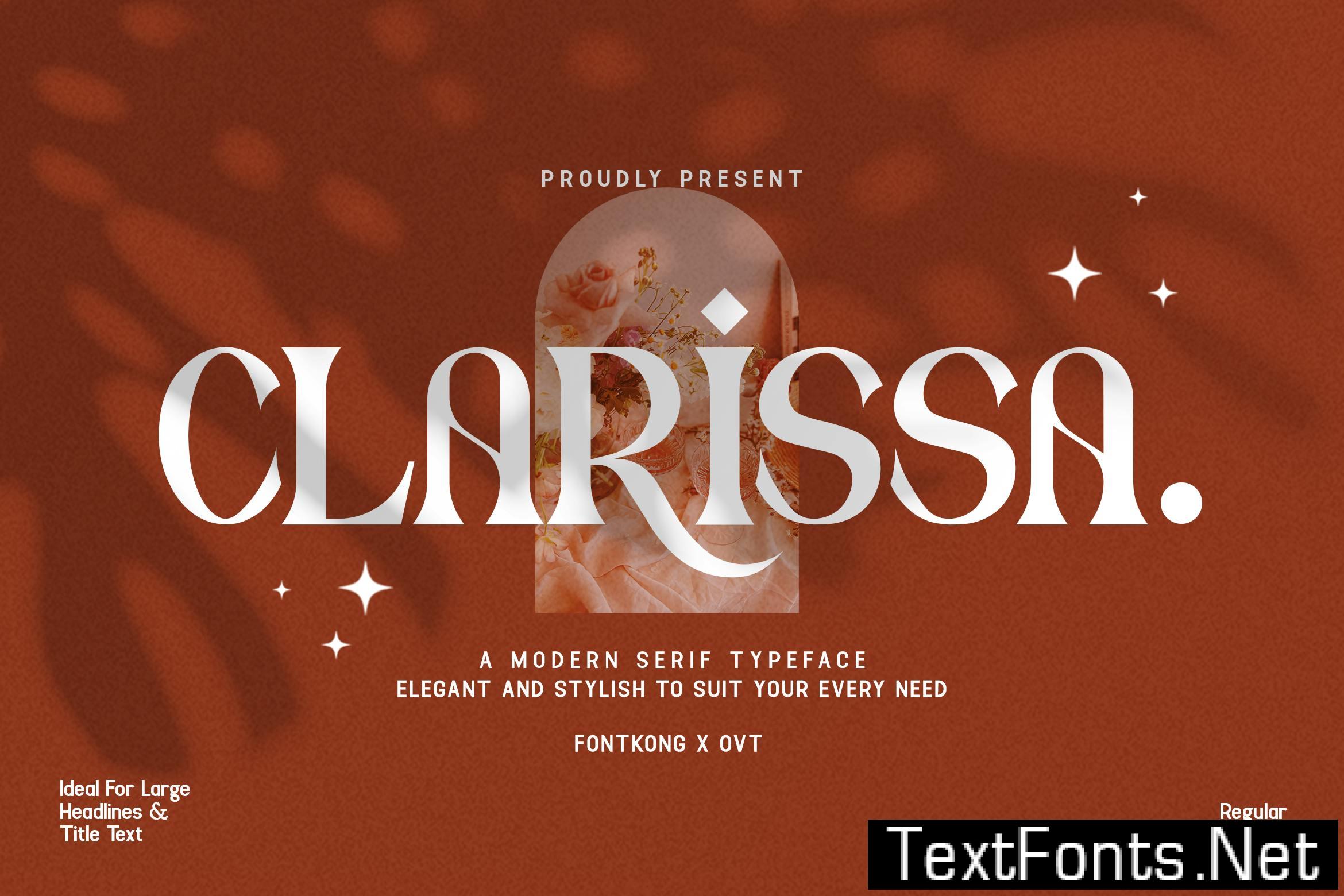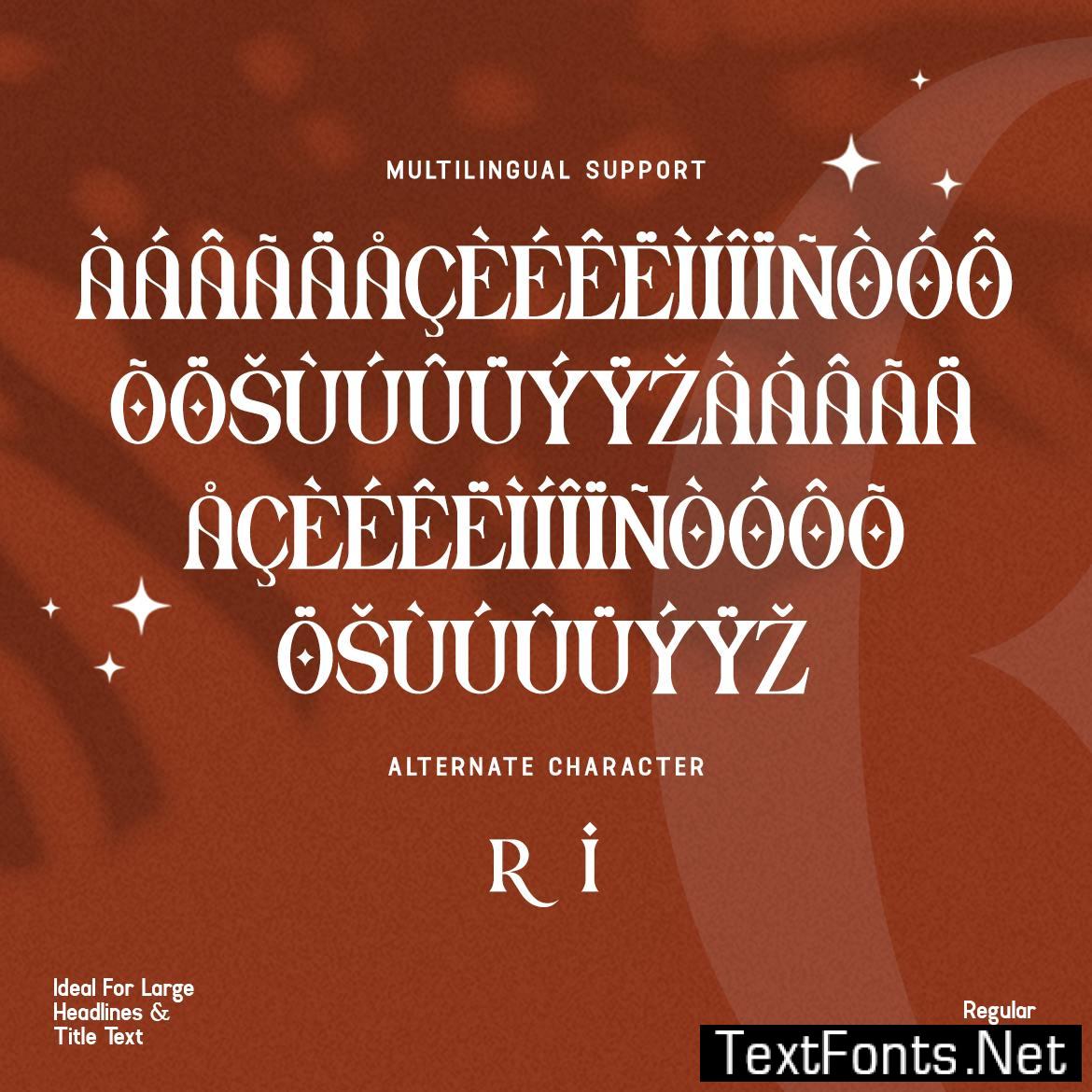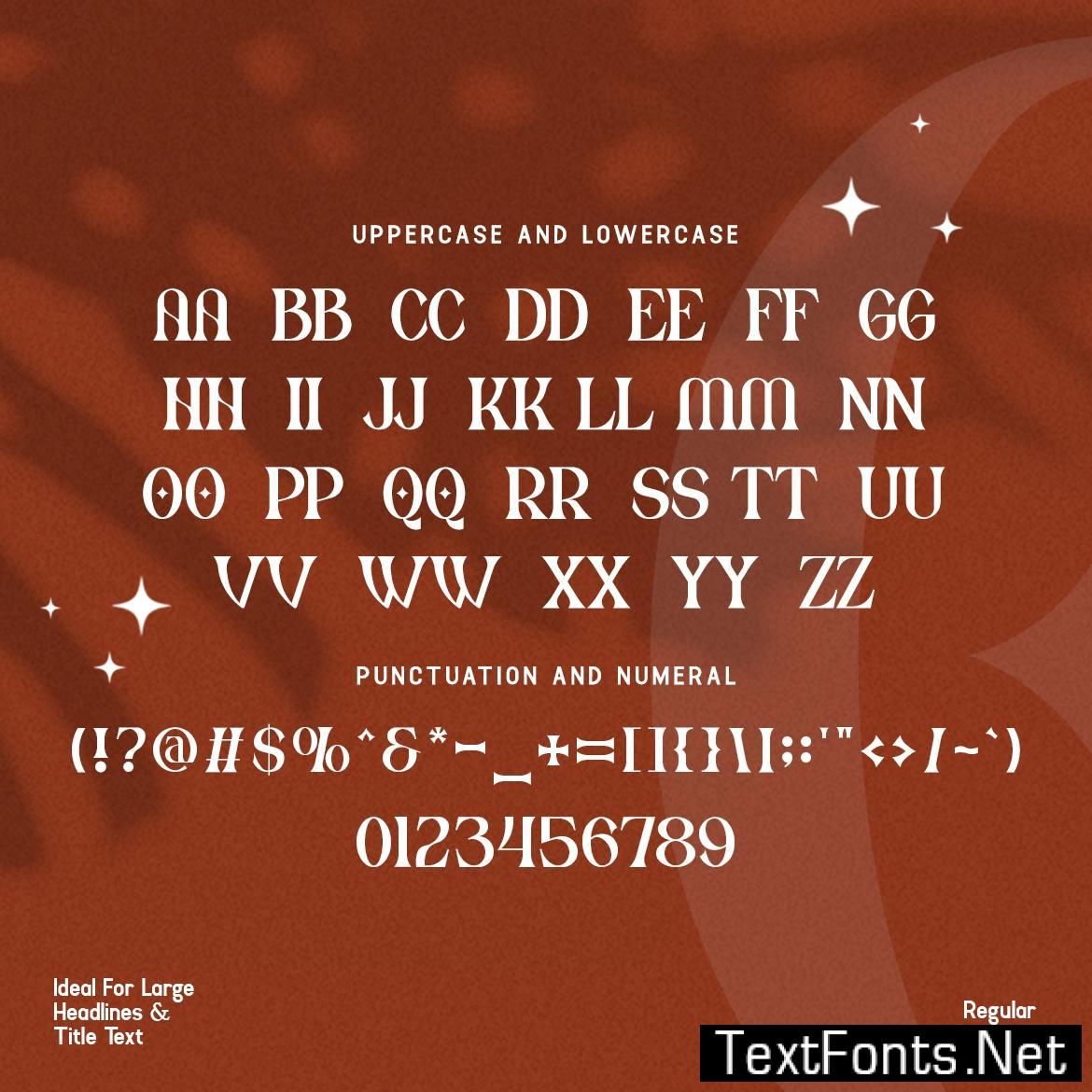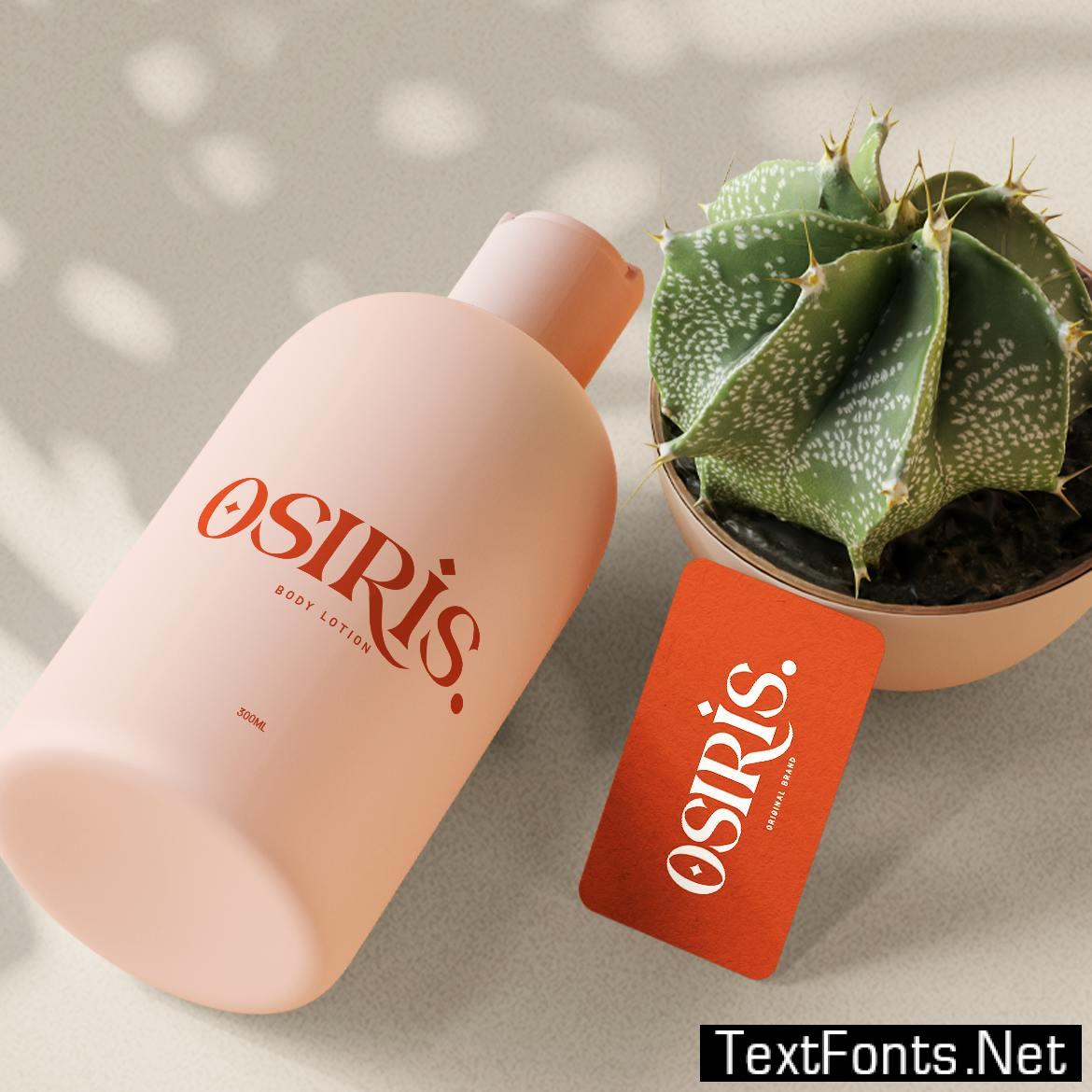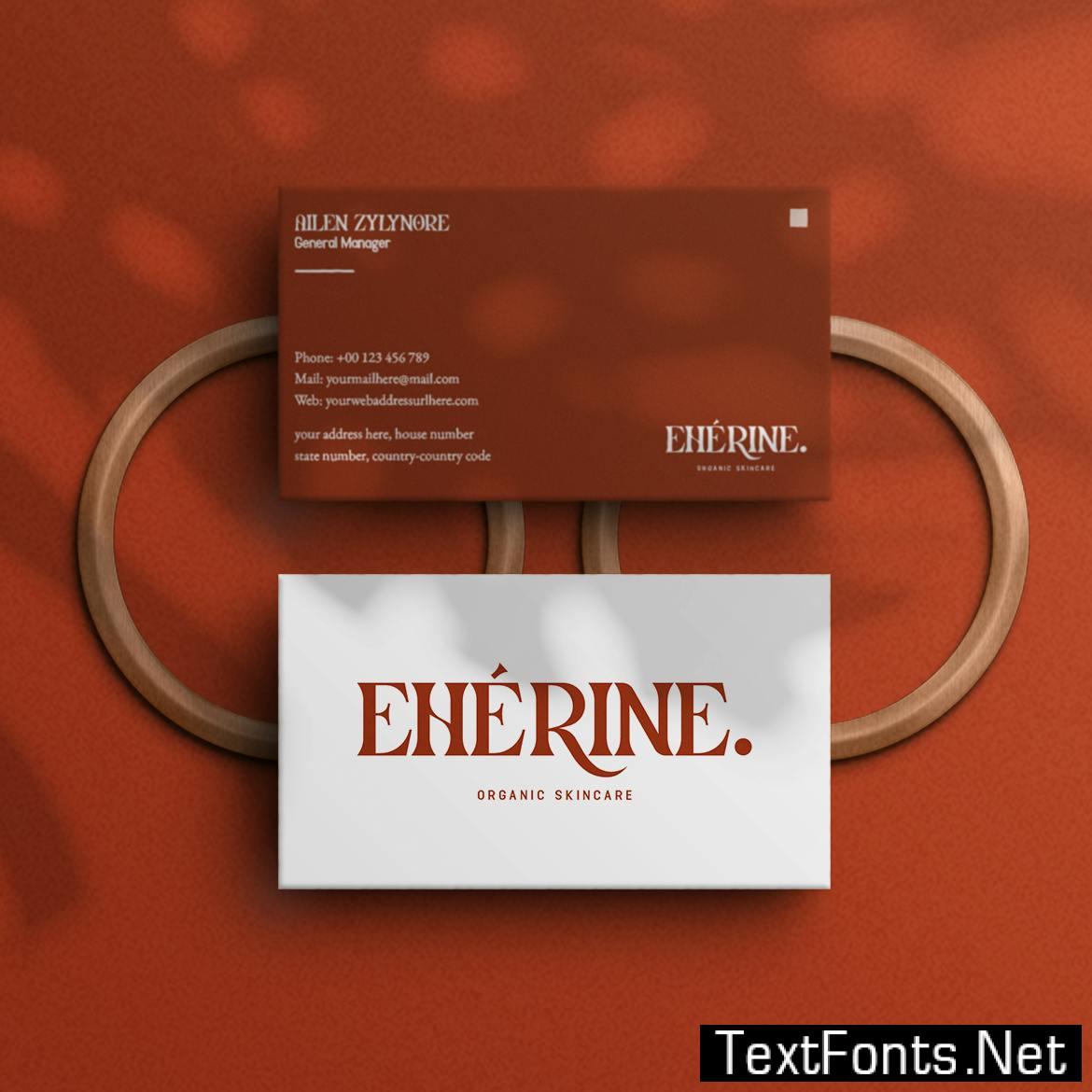
**Clarissa – Modern Serif Typeface**
Introducing “Clarissa,” a beautifully crafted modern serif typeface that merges classic style with a fresh, contemporary feel. Designed for versatility and impact, Clarissa offers an array of possibilities for designers looking to elevate their projects with a sense of sophistication and uniqueness.
Clarissa is characterized by its clean lines, refined serifs, and a balanced structure that enhances readability across various mediums. It is perfectly suited for high-end editorial work, sophisticated branding, and stylish advertising. This typeface includes a comprehensive set of weights, true italics, numerals, punctuation, and broad multilingual support, making it an excellent choice for global communication.
Ideal for everything from book covers and magazine layouts to corporate identity and digital media, Clarissa helps your creations stand out with its distinctive elegance. Its modern yet timeless appeal ensures that your designs not only capture attention but also maintain a lasting impression.
Clarissa is the ultimate modern serif for adding a distinguished touch to your design toolkit.